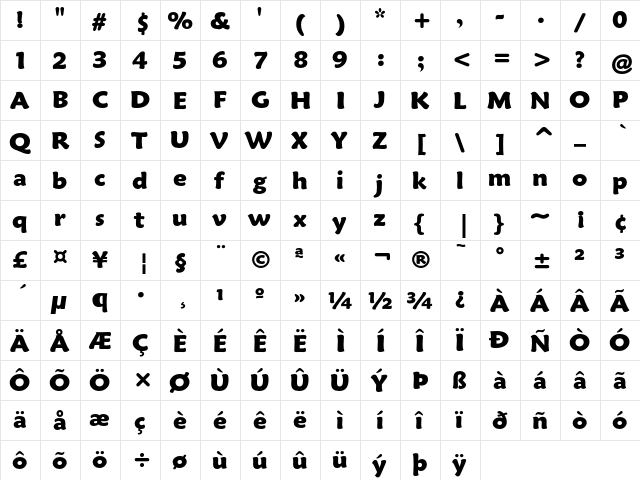
Maiandra Black Font Preview
Maiandra Black
Design Context for Maiandra Typeface
Maiandra takes a measured approach to typography — its balanced proportions and neutral character make it a reliable workhorse for both digital and print work.